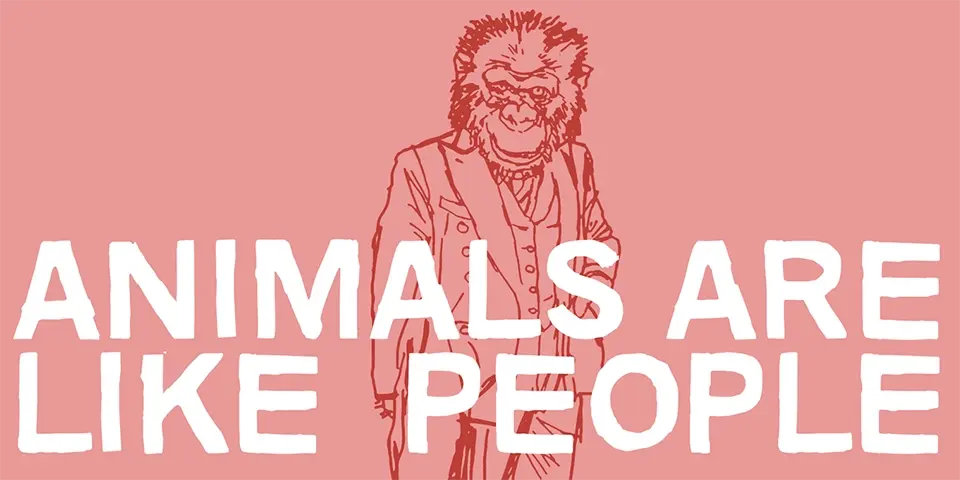
Animals are like people Font
Animals are like people carries the unmistakable sensibility of Juha Korhonen’s broader design output — irregular, expressive, and deliberately unpolished. The letterforms exhibit a loose, hand-drawn quality with uneven stroke weights and a playful baseline rhythm that gives the font its distinct personality. Spacing feels casual rather than mechanical, reinforcing the whimsical tone its name implies. It belongs firmly in the decorative display camp and performs best at larger sizes, where individual character quirks read clearly and add charm. Consider it for children’s book covers, craft product labels, or mascot-driven brand identities where warmth matters more than precision. Using it in dense body copy or professional corporate materials, however, would actively work against the kind of authority those contexts demand.
Children’s book covers and activity page titles
Quirky packaging labels for handmade or craft products
Mascot-based logo projects
Social media posts with playful or animal-themed content
Formal documents or business correspondence
Continuous body text or small-size captions
Corporate branding that requires clean visual authority
Perfect for branding, kids, and logo, with a artistic and cartoon style.